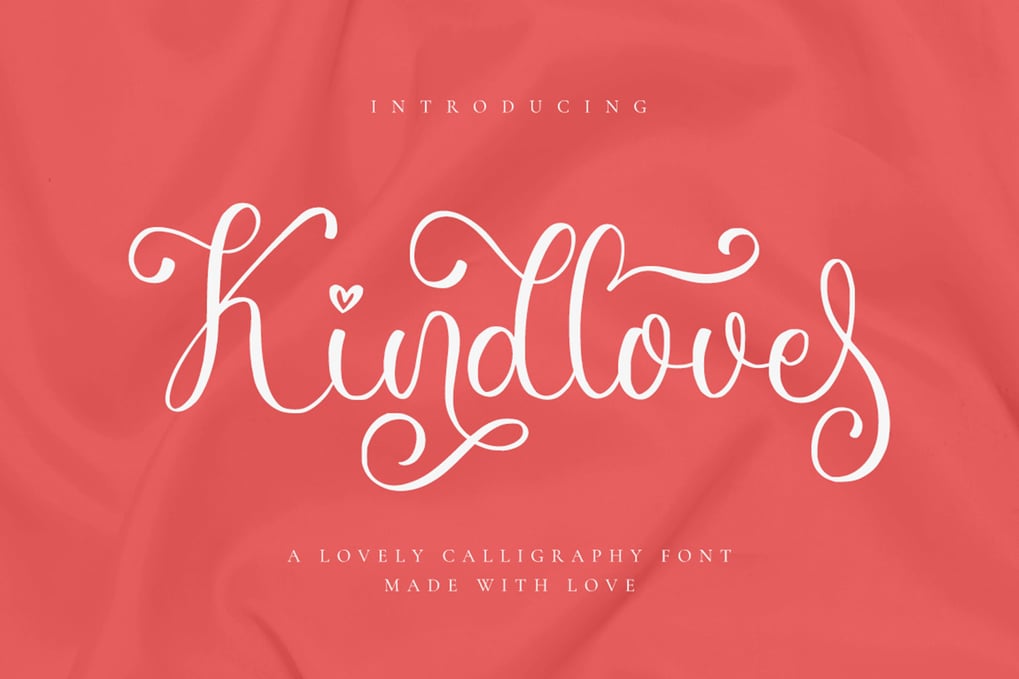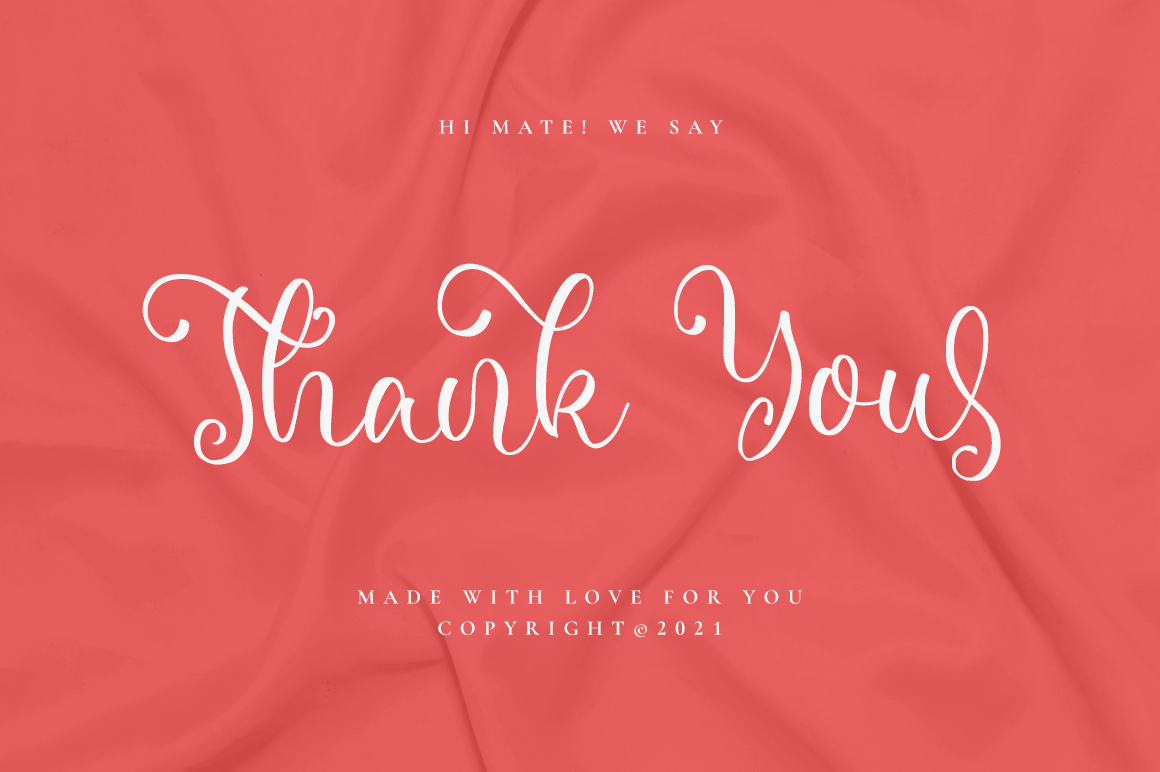
Kindlove – Lovely Script Font
Each Font Has:
* Modern Handwritten Font
* Beautiful Swash (Ending tail)
* Beautiful Titling (Beginning tail)
* Special Ligatures